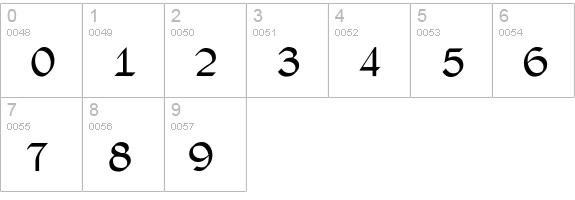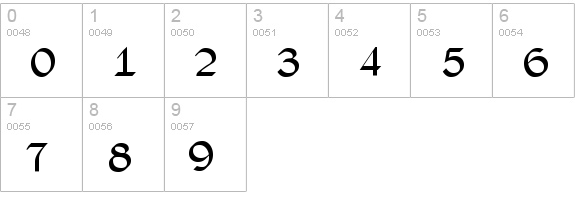
Gothics Font Details
Gothics font is a bold and striking typeface that exudes a sense of mystery and elegance. Its sharp angles and intricate details make it perfect for creating a gothic-inspired look in your designs. Whether you're working on a poster, logo, or website, Gothics font will add a touch of sophistication and drama to your project. And the best part? Gothics font is completely free to download at FontsMarket.com. You can easily access this captivating typeface and use it in your creative endeavors without any cost. Don't miss out on the opportunity to enhance your designs with the distinctive style of Gothics font. Download it today and unleash your creativity!